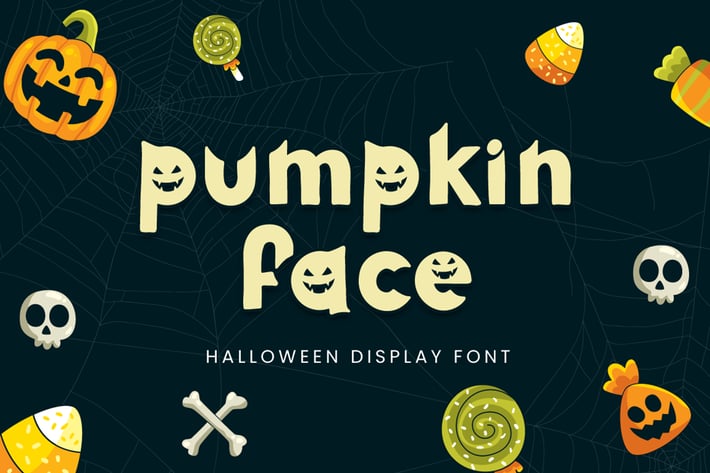
Pumpkin Face - Halloween Font
Pumpkin Face is an exquisite handwritten font, masterfully designed to become a true favorite. it comes with two style regular & display. Fall in love with it and bring your projects to the highest levels!